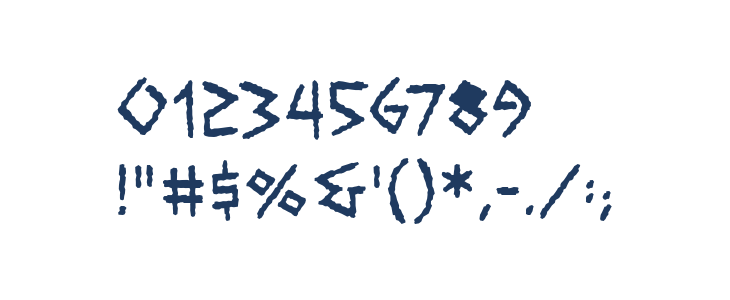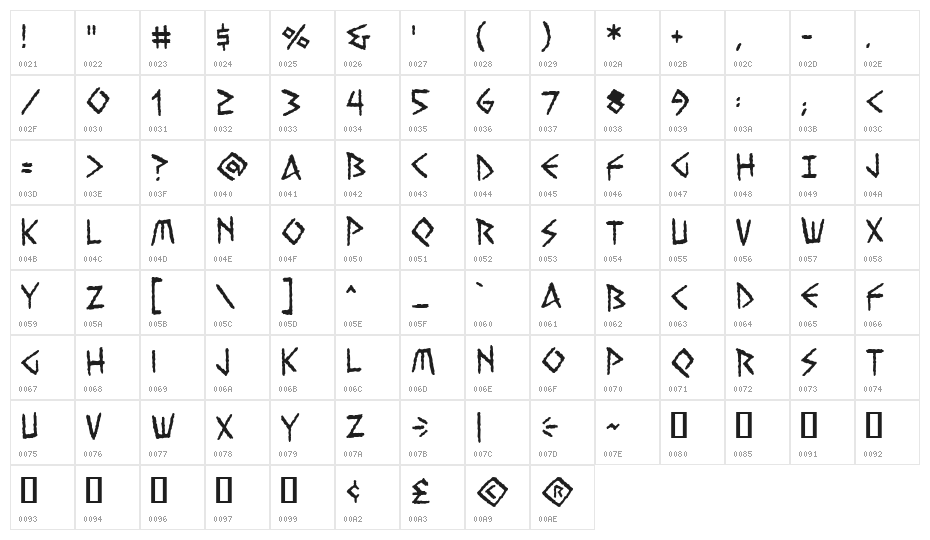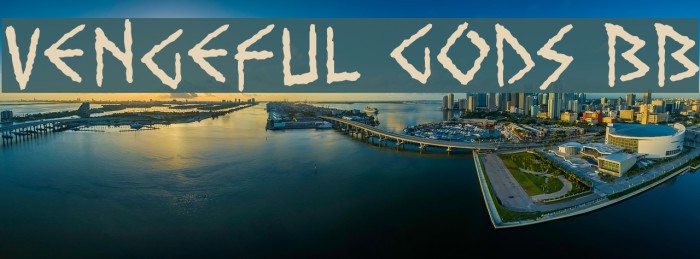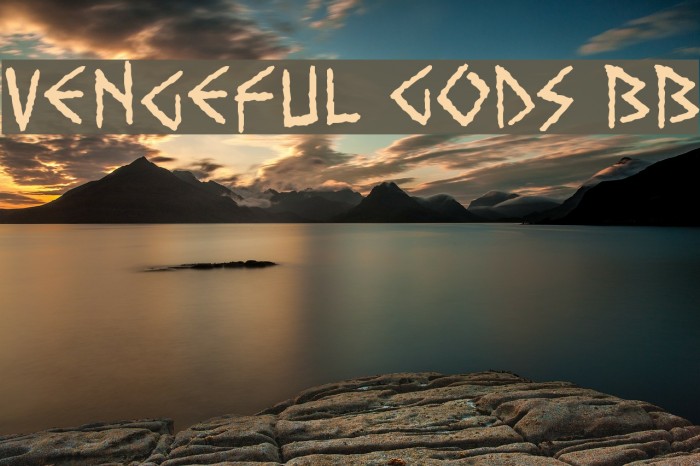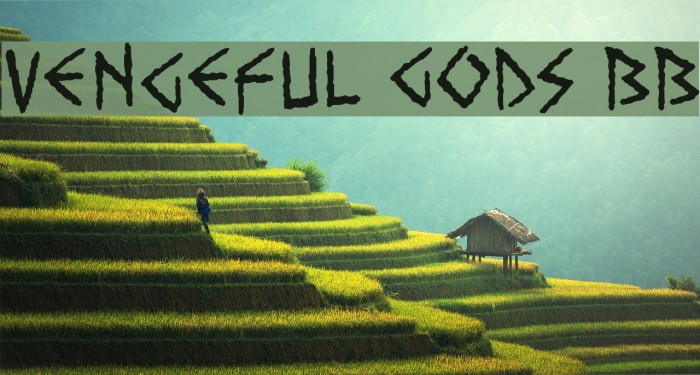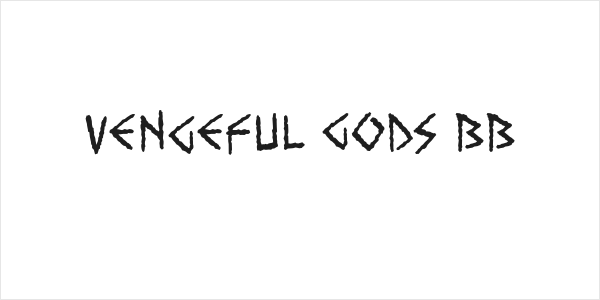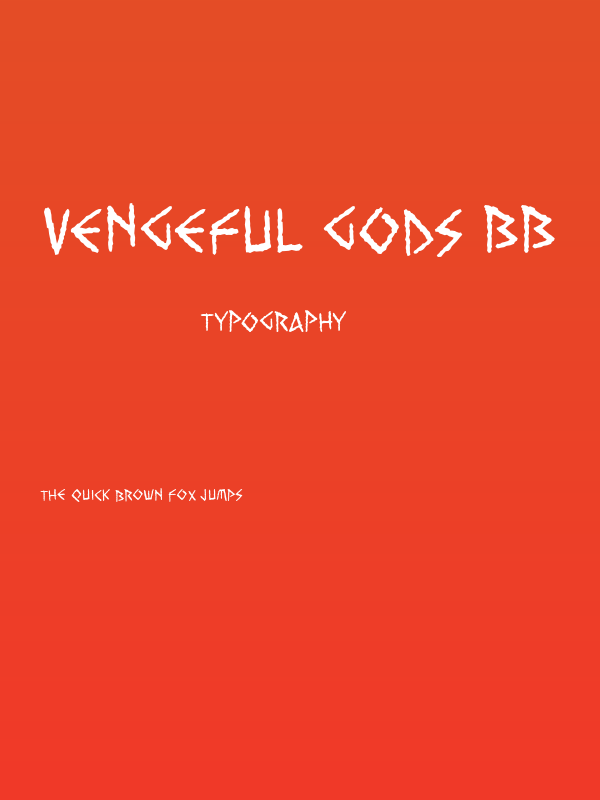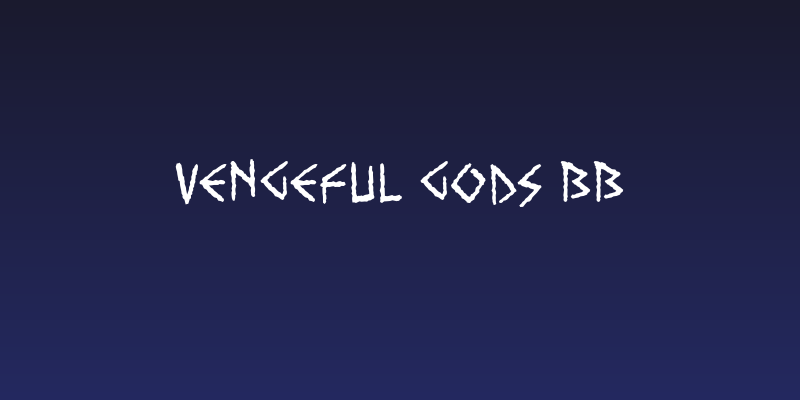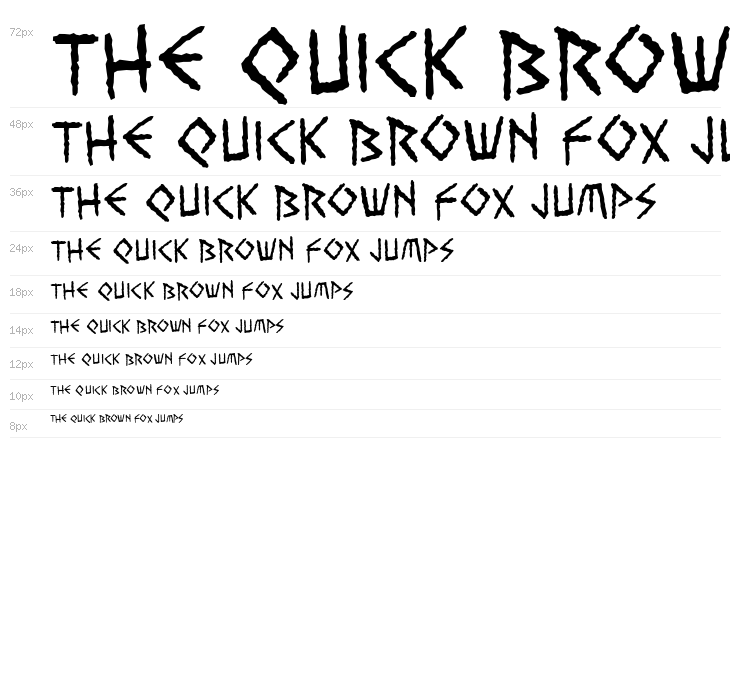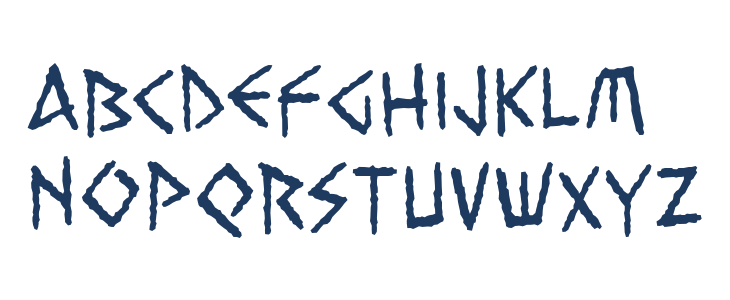
Vengeful Gods BB Font
Vengeful Gods BB Description
This font features a rugged, hand-drawn style with sharp, angular edges and a distressed appearance. The characters are bold and irregular, giving them a raw, primal feel. The uppercase and lowercase letters maintain a consistent style, with jagged lines and uneven strokes that suggest a sense of urgency or intensity. The numbers and special characters follow the same aesthetic, enhancing the font's cohesive look. This font is ideal for projects that require a dramatic, edgy, or ancient vibe, such as fantasy-themed designs or horror movie posters.
Proposed ProjectsIdeal for fantasy-themed designs, horror movie posters, video game titles, or any project needing a dramatic and edgy aesthetic.